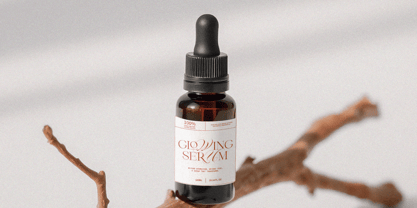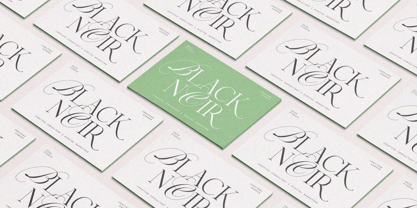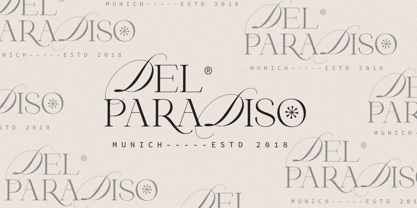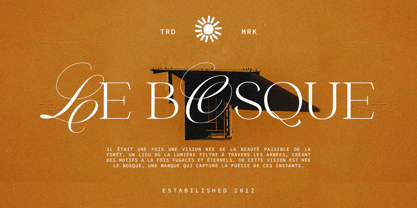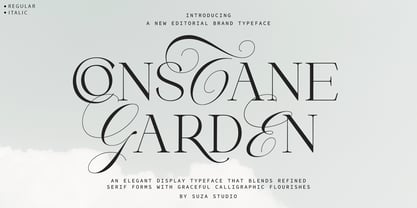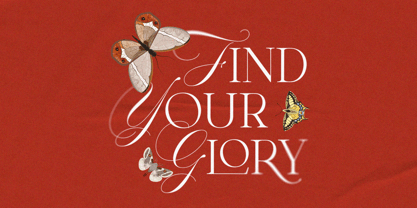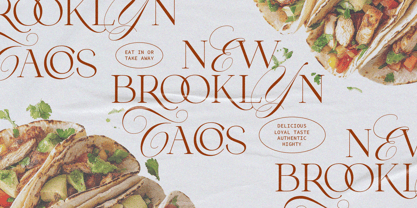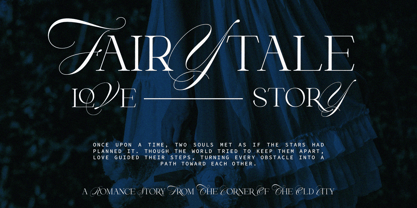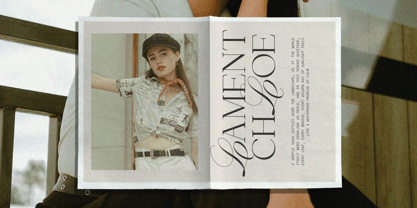
Constane Garden Italic
Die Schriftfamilie Constane Garden Italic wurde von Zikrillah entworfen und von Suza Studio veröffentlicht. Constane Garden Italic enthält 2 Stile und Familienpaketoptionen. Mehr über diese Familie
Constane Garden is a captivating blend of calligraphy and serif, exuding timeless elegance and nostalgic charm that enhances every design. This unique blend brings a touch of sophistication to any project, making it an ideal choice for branding, editorial layouts, and social media visuals. With its versatile aesthetic, Constane Garden enriches your design toolkit, offering endless creative possibilities for refined and stunning results.